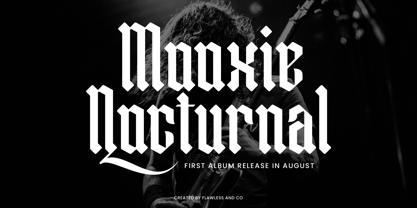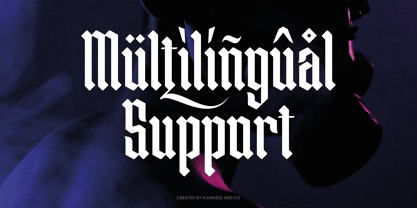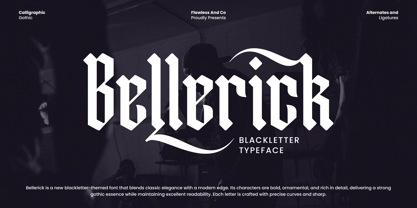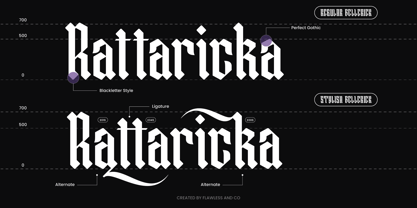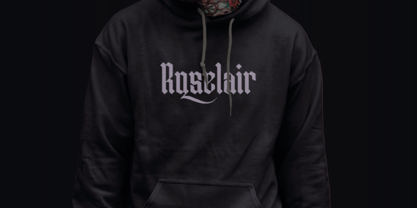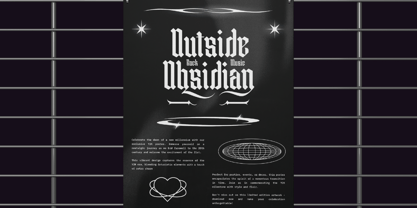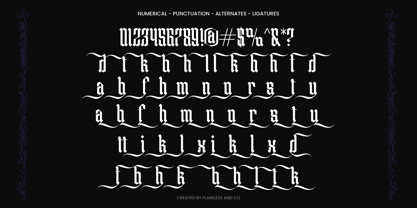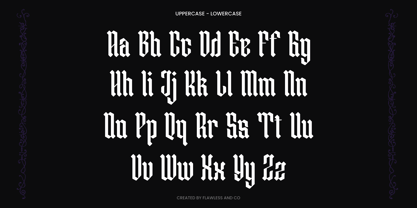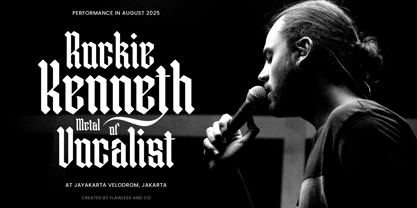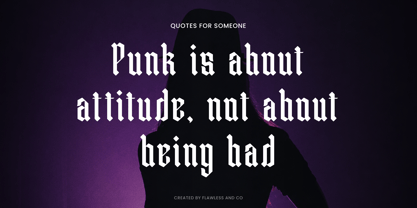
Bellerick
Die Schriftfamilie Bellerick wurde von Achmad Yani entworfen und von Flawlessandco veröffentlicht. Bellerick enthält 1 Stile. Mehr über diese Familie
Bellerick is a striking blackletter typeface that merges traditional gothic aesthetics with a modern twist. Its bold and ornamental letterforms are crafted with sharp edges and smooth curves, giving it a distinctive and powerful presence. Perfect for projects that demand a strong gothic character while ensuring readability, Bellerick delivers elegance, strength, and artistry in every letter.